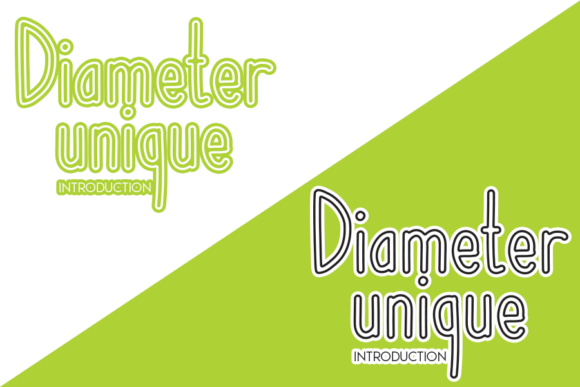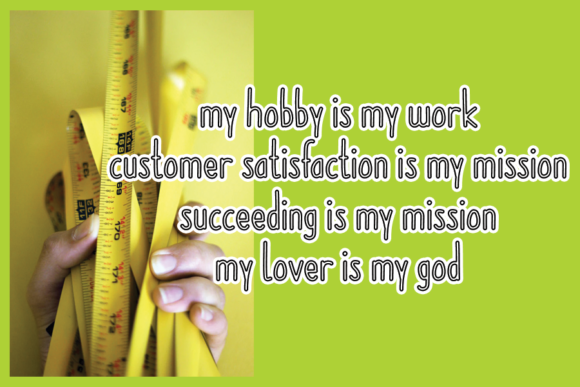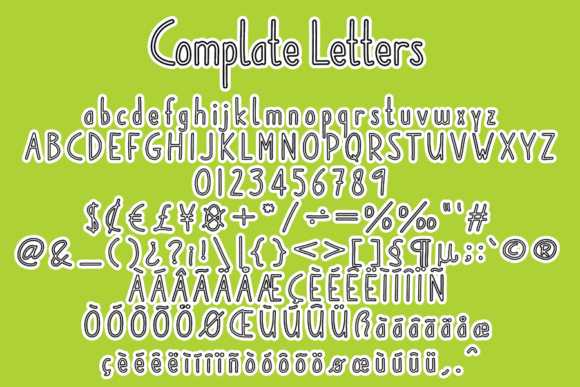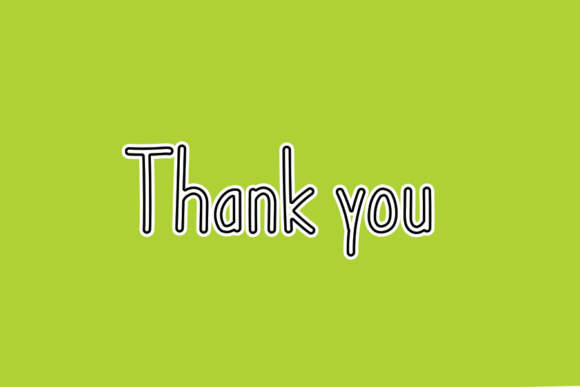
Introducing Diameter Unique Font: Elevate Your DIY Projects with a Touch of Elegance
Are you a designer, crafter, or DIY enthusiast looking for a unique and stunning font to take your projects to the next level? Look no further than Diameter Unique Font! This gorgeous outline display font is designed to bring a touch of elegance and sophistication to any DIY project, making it perfect for crafters, makers, and creatives of all kinds.
What Makes Diameter Unique Font So Special?
Diameter Unique Font is a one-of-a-kind outline display font that boasts a distinctive and eye-catching design. Its unique outline style and carefully crafted lettering make it stand out from the crowd, adding a touch of glamour and refinement to any project. Whether you’re working on a handmade card, a customized gift, or a DIY home decor project, this font is sure to make it shine.
Key Features of Diameter Unique Font
- Unique Outline Style: Diameter Unique Font features a stunning outline design that adds a touch of sophistication to any project.
- Carefully Crafted Lettering: Each letter has been carefully crafted to ensure a high level of legibility and style.
- High-Quality Design: This font is designed to deliver exceptional results, with crisp and clean lines that look great in both digital and print formats.
- Easily Customizable: Diameter Unique Font is easy to customize, allowing you to adjust the font size, color, and style to suit your project’s needs.
Uses for Diameter Unique Font
Diameter Unique Font is an incredibly versatile font that can be used for a wide range of DIY projects, including:
- Handmade Cards and Gifts: Add a touch of elegance to your handmade cards and gifts with this stunning font.
- DIY Home Decor: Use Diameter Unique Font to create beautiful signs, wall art, and other home decor projects.
- Crafting and Scrapbooking: This font is perfect for crafters and scrapbookers looking to add a unique touch to their projects.
- Digital Art and Design: Diameter Unique Font can also be used for digital art and design projects, such as creating social media graphics, blog headers, and more.
Tips for Using Diameter Unique Font
To get the most out of Diameter Unique Font, here are a few tips to keep in mind:
- Experiment with Different Sizes and Colors: Don’t be afraid to experiment with different font sizes and colors to find the perfect combination for your project.
- Pair with Other Fonts: Diameter Unique Font pairs well with a variety of other fonts, so feel free to get creative and experiment with different font combinations.
- Use for Headlines and Titles: This font is perfect for headlines and titles, where its unique outline style can really shine.
In conclusion, Diameter Unique Font is a stunning outline display font that is sure to elevate any DIY project to the next level. With its unique outline style, carefully crafted lettering, and high-quality design, this font is perfect for designers, crafters, and DIY enthusiasts of all kinds. So why wait? Download Diameter Unique Font today and start bringing your DIY projects to life with a touch of elegance and sophistication!